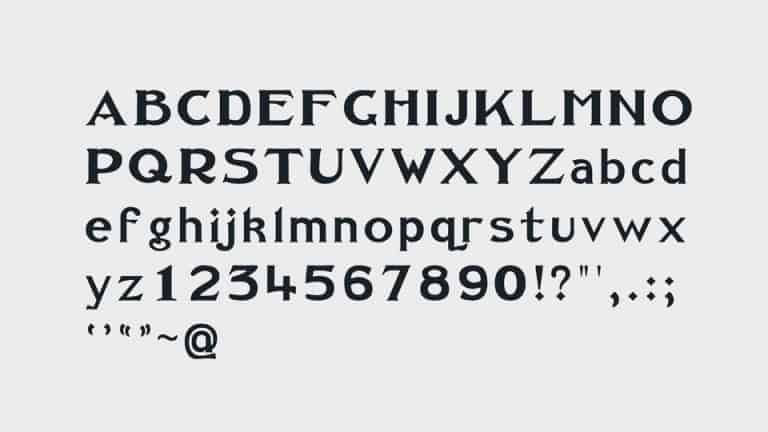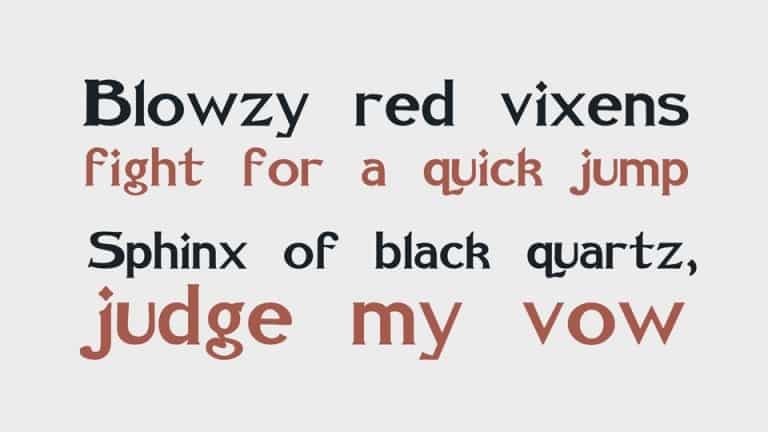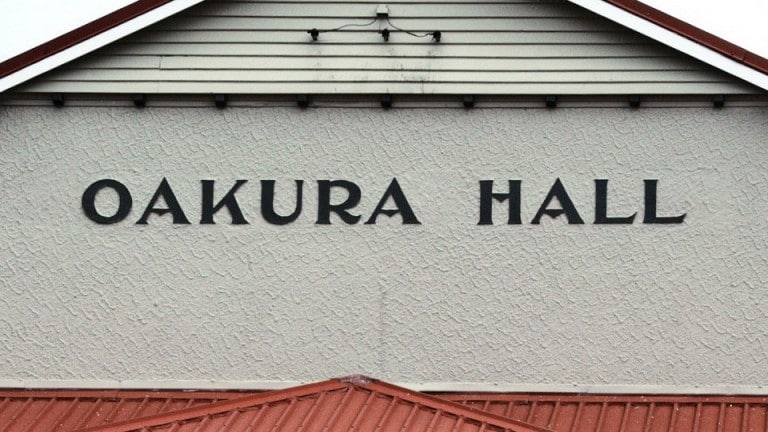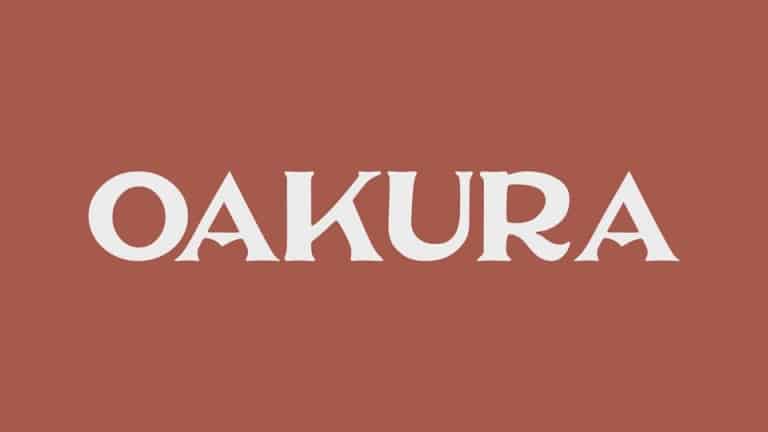
Oakura Serif Font
Oakura Serif Font is a great example of a modern typeface design. This font is designed and shared by Andrew McMillan. It’s a fancy vintage serif font based on the sign lettering on the community hall at Oakura in Taranaki, New Zealand. Perfect for refined lifestyle, editorial, branding or infographic design, Sacre Blue is perfect for those designers looking for a special typeface to set their work apart!